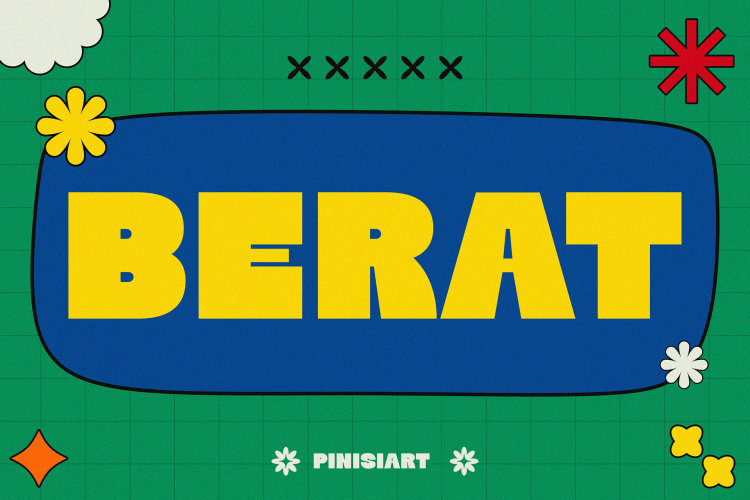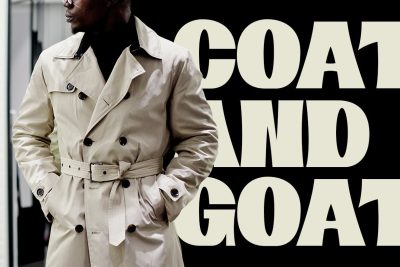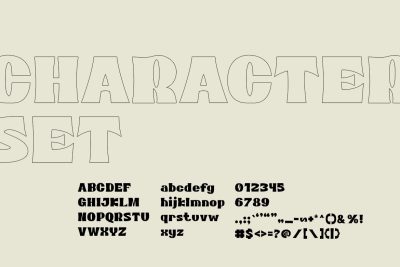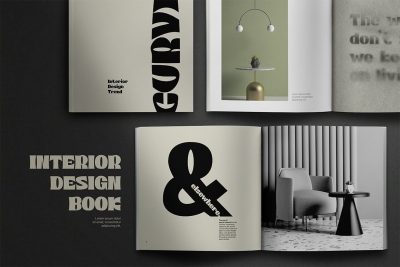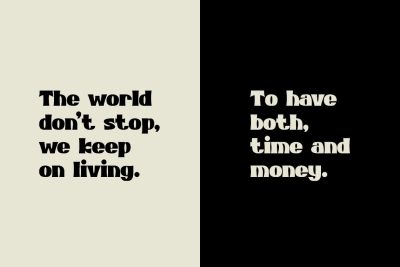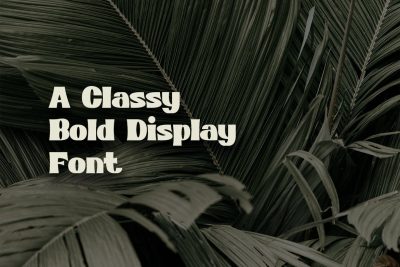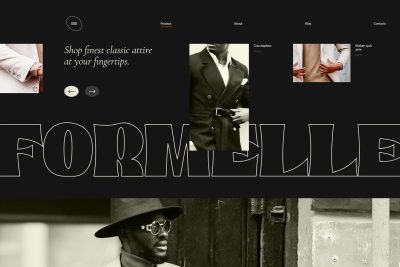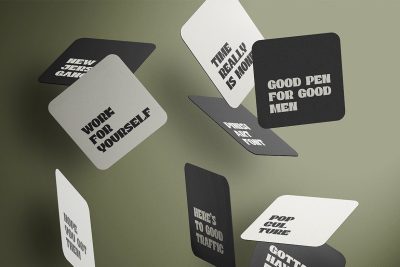
Instagram Font BERAT: A Retro Revolution in Digital Typography
Instagram Font BERAT is a bold and vibrant typeface that instantly grabs attention. Not only does it blend nostalgic charm with a fresh digital vibe, but it also adds playful energy to every message. The font features thick strokes, quirky curves, and chunky letterforms. As a result, it evokes the spirit of ’70s and ’90s pop culture. Moreover, it is especially effective on platforms like Instagram, where visual appeal is key and first impressions matter.
What truly sets BERAT apart is its bold personality. In fact, this font isnโt just made of letters โ itโs made of attitude. Through color blocking, rounded shapes, and playful proportions, it delivers a look thatโs fun, energetic, and friendly. At the same time, it remains highly readable across devices. Thanks to its balance between retro style and modern clarity, BERAT brings nostalgic charm into today’s fast-paced digital space. Consequently, itโs the perfect choice for creators who want to inject personality and energy into their content.
BERATโs design works particularly well with vibrant color palettes and layered graphics. Whether you’re promoting a special offer, announcing a product drop, or sharing an exciting update, the font commands attention without overwhelming your message. Plus, it seamlessly adapts to both still visuals and motion graphics, making it a smart choice for dynamic brand storytelling.
Instagram Font BERAT Perfect For
BERAT is ideal for fashion brands, youth-focused campaigns, and high-impact marketing. In particular, social media managers, graphic designers, and digital marketers will benefit from its visual boldness. Additionally, brands targeting Gen Z or millennials will appreciate its youthful flair and retro appeal. Whether you’re designing Instagram posts, TikTok graphics, or promotional flyers, this font delivers the punch you need. It also suits lifestyle blogs, event posters, school campaigns, or any creative visuals aimed at young, trend-conscious audiences.
Conclusion
To sum up, BERAT offers a bold, retro-inspired style combined with modern function. It doesn’t just enhance your content โ it transforms it. With this font, youโll boost engagement, reinforce your brandโs identity, and catch more eyes on social media. So why wait? Add BERAT to your creative toolkit today and make every post impossible to scroll past.